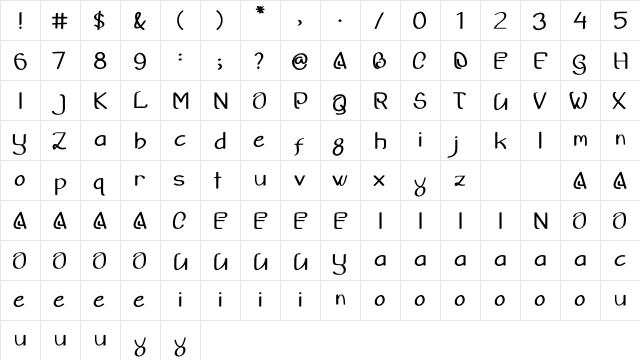
Jasmine Regular
| Designer | Mizan Studio |
Design Context for Jasmine Typeface
Jasmine is a composed and adaptable typeface that performs quietly and consistently across a wide range of design contexts.